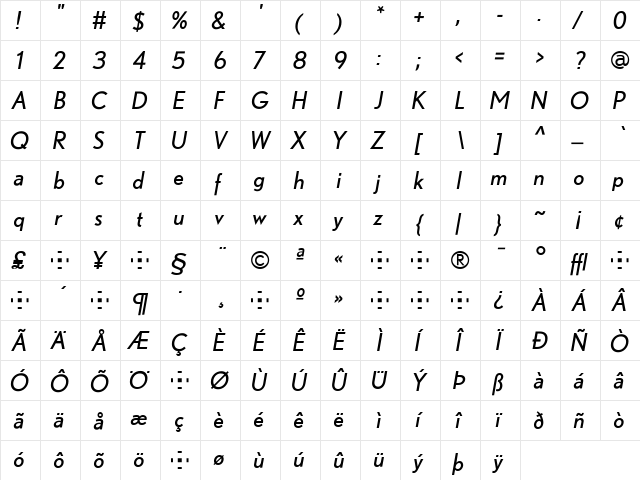
Nobel Italic
Design Context for Nobel Typeface
Nobel offers clean, dependable letterforms without strong stylistic allegiance, making it a practical choice for designers who need flexibility. Its italic angle brings a sense of urgency and motion to the letterforms.
Pro Tip: Try Nobel for annotation and caption copy alongside an upright companion — the contrast in angle creates a dynamic but ordered typographic system.